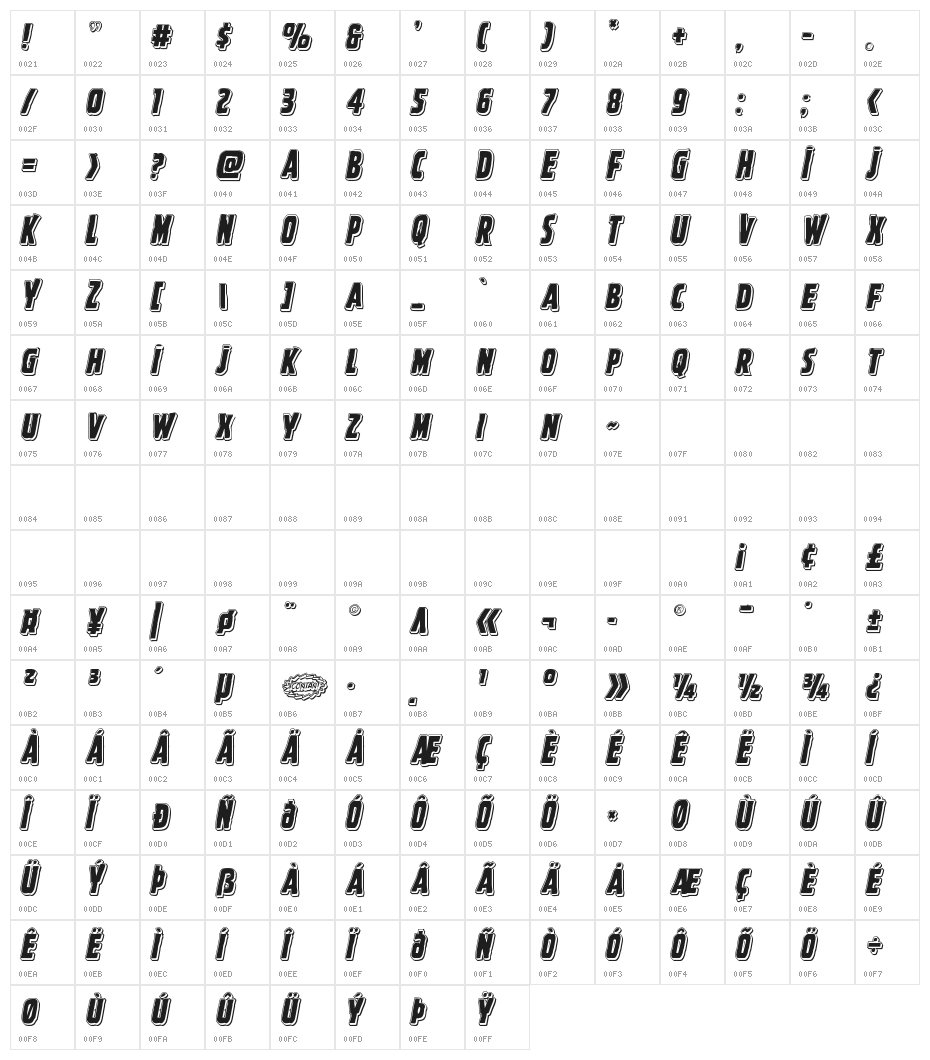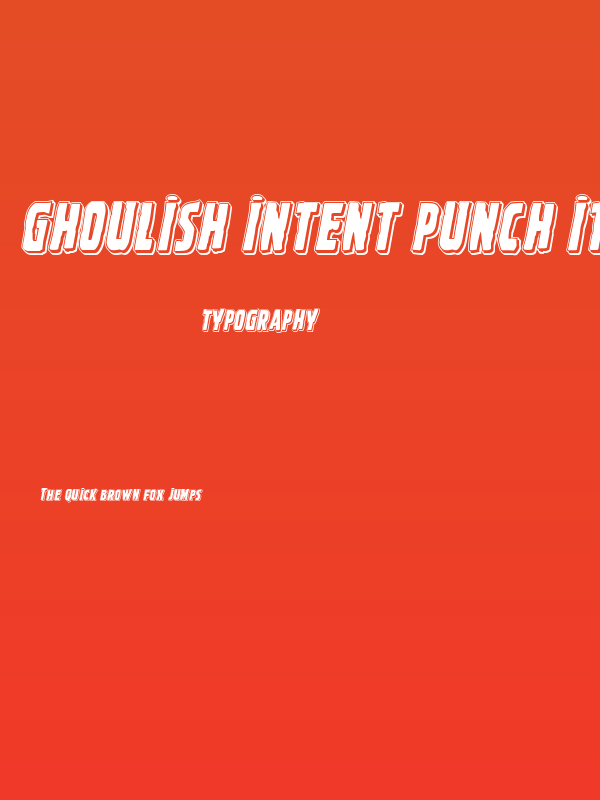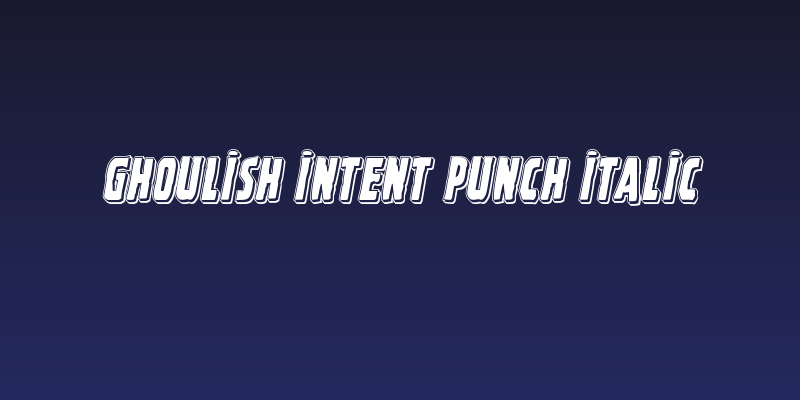
Ghoulish Intent Punch Italic Font
Ghoulish Intent Punch Italic Description
This font features a bold, dynamic style with a strong presence. It has a distinct italic slant, giving it a sense of motion and energy. The characters are outlined with a thick border, enhancing their visibility and impact. The font is designed with a modern, edgy aesthetic, making it suitable for attention-grabbing headlines and titles. Its boldness and unique style make it stand out, while the italic angle adds a touch of sophistication. The characters are well-spaced, ensuring readability even at smaller sizes.
| Proposed Projects | Ideal for posters, logos, and branding materials that require a bold and dynamic look. |